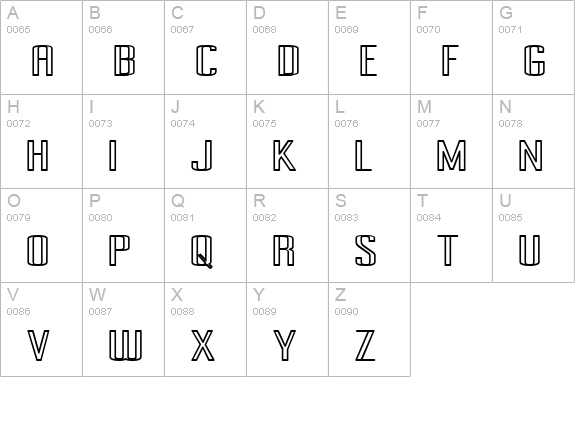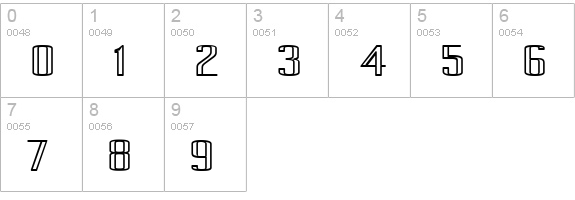
Pecot Outline Bold is a strong, high-contrast variant in the Pecot typeface family \xE2\x80\x94 well suited to headlines, attention-grabbing titles, and strong calls-to-action.
Introducing Pecot Outline Bold font, a versatile and eye-catching typeface that is sure to make a bold statement in any design project. This font exudes confidence and modernity, with its clean lines and sharp edges. Its bold outline adds a touch of drama, making it perfect for headlines, logos, posters, and more. Pecot Outline Bold font offers a range of weights and styles, allowing you to play around with different combinations and create visually stunning compositions. Whether you're going for a sleek and professional look or a more edgy and contemporary feel, this font has got you covered. But what sets Pecot Outline Bold font apart is that it is not only visually appealing, but also freely available to download at FontsMarket.com. Yes, you read that right – this high-quality font can be yours for free! FontsMarket.com is a trusted source for premium fonts, and they are proud to offer Pecot Outline Bold font as a free download. So why wait? Enhance your designs with the bold and captivating Pecot Outline Bold font. Whether you're a professional designer or just starting out, this font will elevate your projects to new heights. Don't miss out on this opportunity to add a touch of sophistication and creativity to your work. Download Pecot Outline Bold font today at FontsMarket.com and let your imagination run wild.